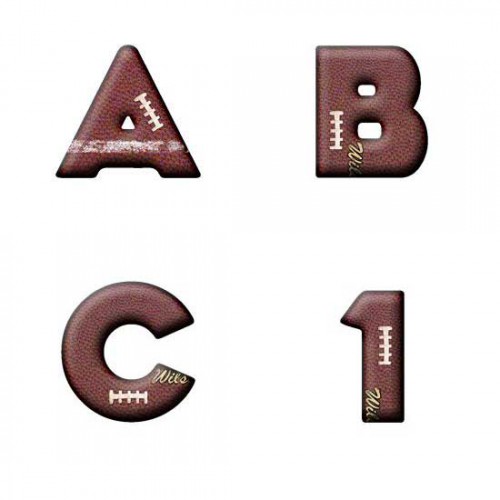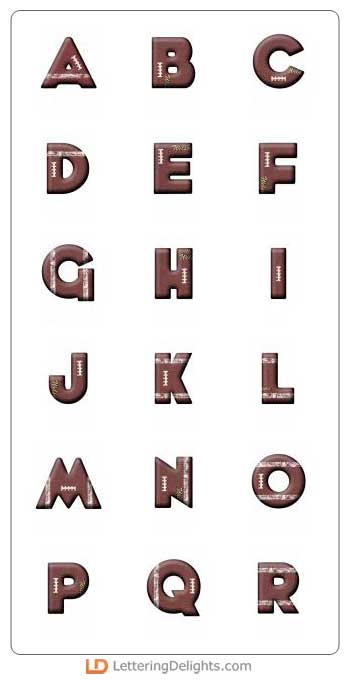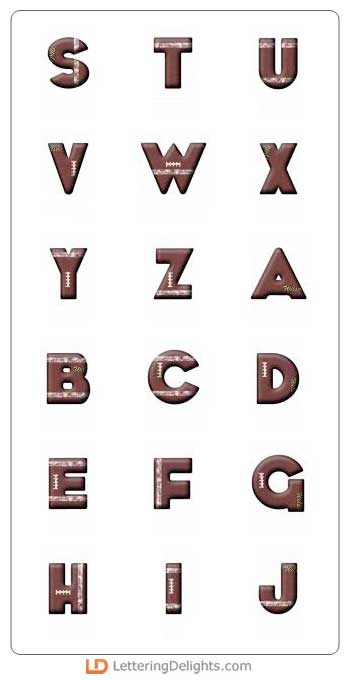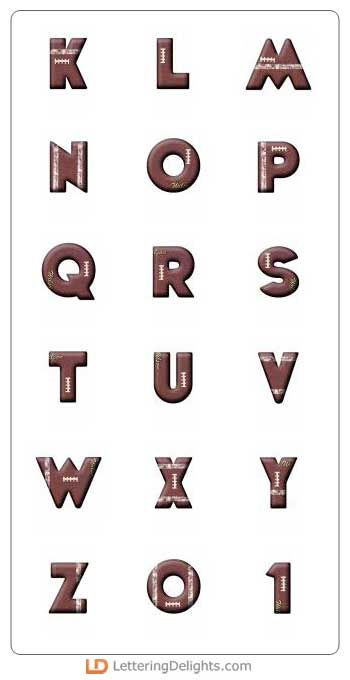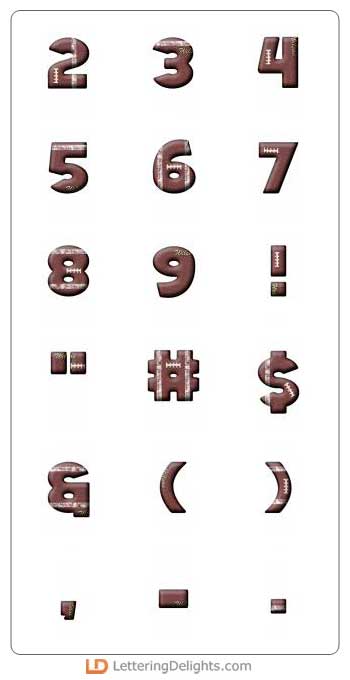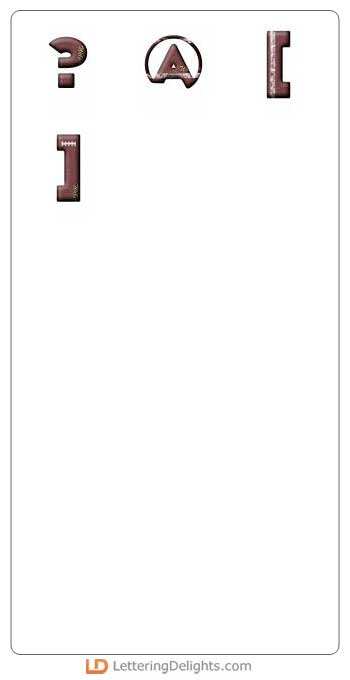
Down, set, hut! Let the football game begin! Each letter of this alphabet has a football leather background (complete with the white laces). It's great for that sports related layout or title.